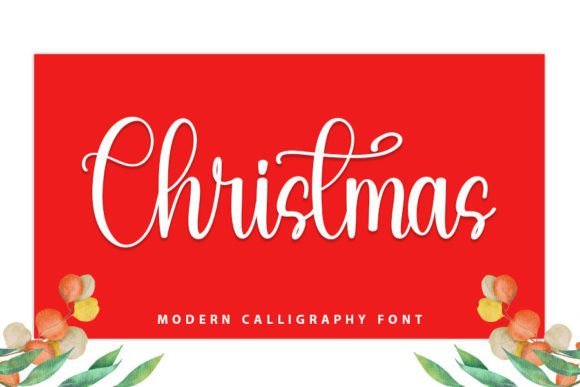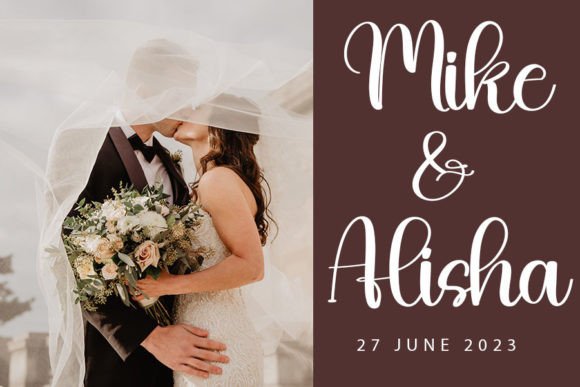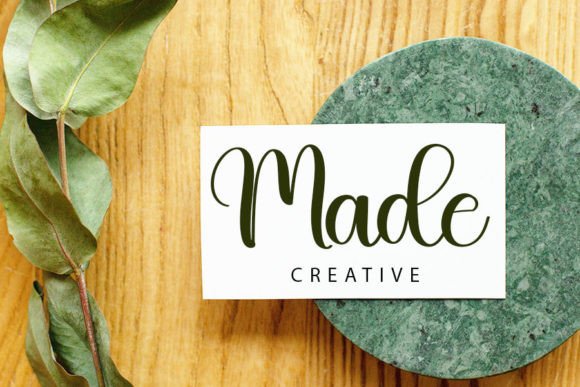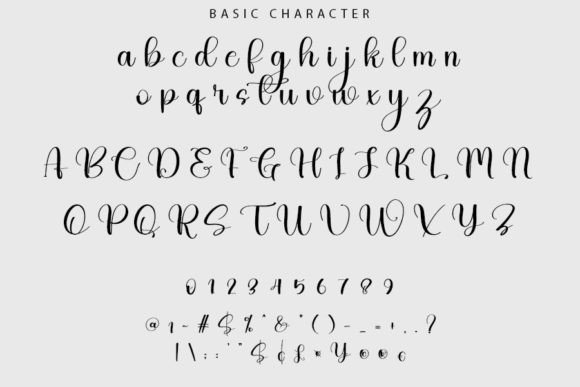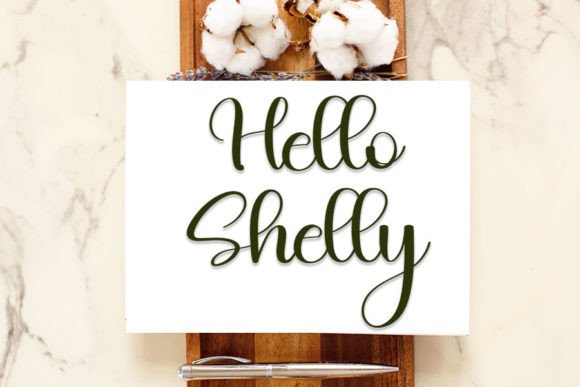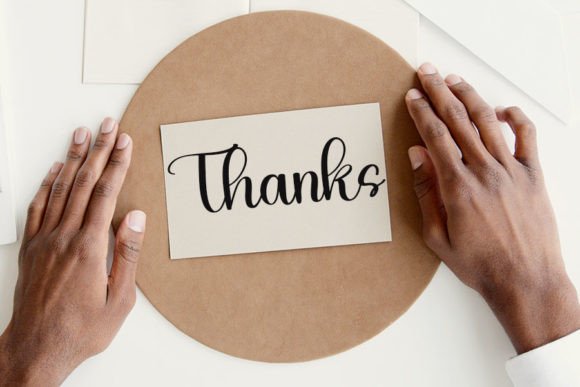
Deck the Halls with Style: Unwrapping the Magic of Christmas Font
As a designer, there’s nothing quite like the thrill of creating something special for the holiday season. The twinkling lights, the cozy atmosphere, and the joy on people’s faces – it’s a time of year that inspires us to get creative and push the boundaries of our art. And that’s exactly what happens when we discover the perfect font to capture the essence of Christmas. Enter Christmas Font, a stunning handwritten font that embodies the spirit of the season with its elegant, contemporary flair.
Designed to elevate your projects to new heights, Christmas Font is more than just a font – it’s a key to unlocking the magic of the holiday season. With its impeccable form and balanced, varied design, it’s the perfect addition to any designer’s toolkit. Whether you’re crafting holiday cards, designing festive packaging, or creating a winter wonderland-themed website, Christmas Font is sure to bring a touch of sophistication and whimsy to your work.
Christmas Font Key Features
- Font Family: Christmas Font is a custom-designed font family, specifically created for festive occasions.
- Unique Characteristics: The font features intricate, hand-drawn designs and ornaments, making it a perfect choice for creating festive and holiday-themed designs.
Designer Review: Christmas Font
Overall, I think Christmas Font has some great qualities that could make it a standout choice for holiday-themed designs. ✨ The font is playful and festive, with a fun, handwritten feel that’s perfect for adding a personal touch to your designs. ✨ The variety of styles and weights available also makes it easy to use in different contexts, from headers to body text.
One of the things that really stands out about Christmas Font is its versatility. ✨ You can use it to create everything from cheerful greeting cards to modern holiday graphics. ✨ The font also works well in a variety of colors, making it easy to match with your brand’s existing color scheme.
Limitsations:
- ⚠️ Limited use outside of the holiday season: While Christmas Font is perfect for holiday-themed designs, it may not be as versatile for everyday use.
- ⚠️ May not be suitable for professional or formal designs: The playful, handwritten feel of Christmas Font may not be the best choice for more formal or professional projects.
Overall, I think Christmas Font is a great choice for designers who want to add a fun, festive touch to their holiday designs. While it may have some limitations, its versatility and playfulness make it a standout choice for holiday-themed projects.
For the best results, use the Christmas Font in conjunction with festive graphics, images, and colors. Experiment with different font sizes, colors, and styles to create a unique and eye-catching design. Consider pairing the Christmas Font with other winter-themed fonts for added visual interest.
The Christmas Font is perfect for creating festive invitations, holiday cards, and social media posts. It’s also great for designing Christmas-themed merchandise, such as t-shirts, mugs, and stickers. Use the font to add a touch of holiday cheer to your designs and make them stand out during the festive season.